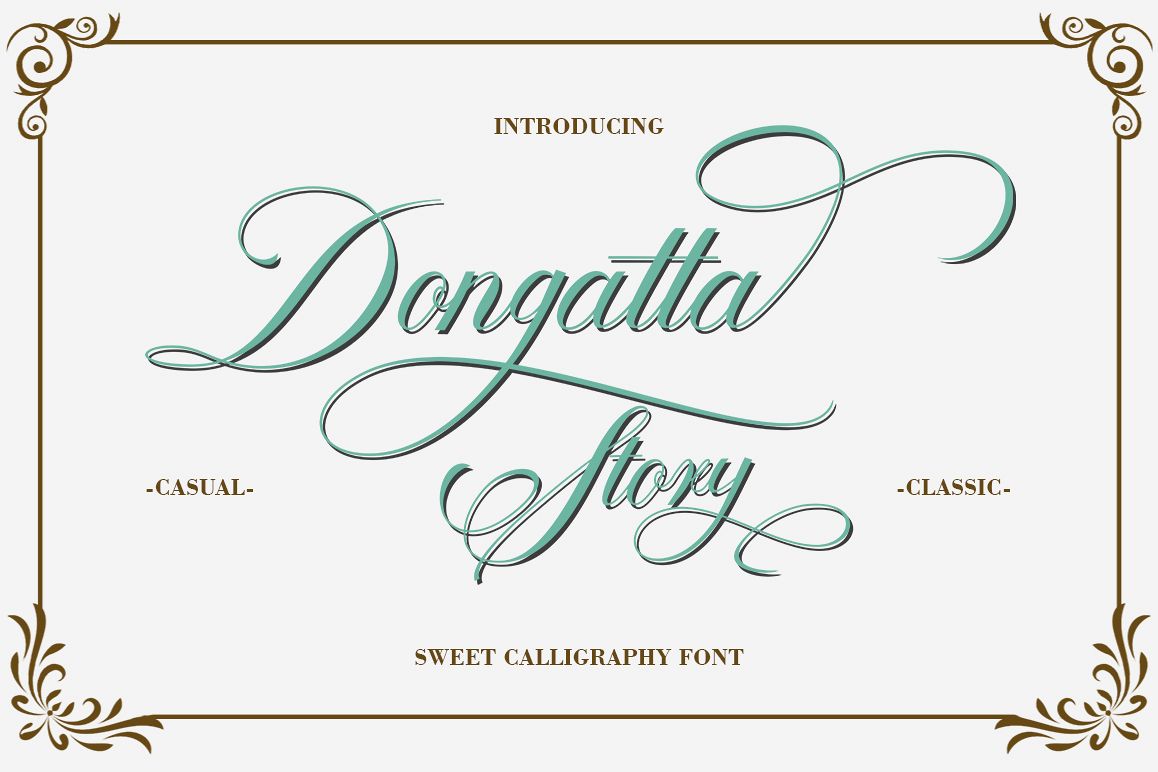
Dongatta Story Script is a calligraphy script font that comes with beautiful alternative characters. a mixture of copper calligraphy with handleting style. Designed to bring style elegance.Dongatta Story attracts such a subtle, clean, feminine, sensual, glamorous, simple and very readable typeface. The classic style is perfect to apply in various formal forms such as invitations, labels, menus, Logos, fashion, make up, stationery, letterpress, romantic novels, magazines, books, greeting / wedding cards, packaging, labels. Dongatta Story Script has 290 glyphs. including multiple language support. With OpenType features with stylish alternatives, ligatures and characters, allowing you to mix and match pairs of letters to fit your design, as well as a touch of ornament to make this font look elegant. Files include:Dongatta Story (OTF, TTF) To enable OpenType Stylistic alternates, you need a program that supports OpenType features like Adobe Illustrator CS, Adobe Indesign & CorelDraw X6-X7, Microsoft Word 2010 or later. (Windows), Font Book (Mac) or software programs such as PopChar (for Windows and Mac). How to access all the alternate characters using Adobe Illustrator: https://www.youtube.com/watch?v=XzwjMkbB-wQ How to use the stylistic font set in Microsoft Word 2010 or later: https://www.youtube.com/watch?v=NVJlZQ3EZU0 There are additional ways to access alternatives / swashes, using Character Map (Windows), Font Nexus (Windows) Font Book (Mac) or software programs like PopChar (for Windows and Mac). How to access all the alternate characters, using Windows Character Map with Photoshop: https://www.youtube.com/watch?v=Go9vacoYmBw Thank you for your visit